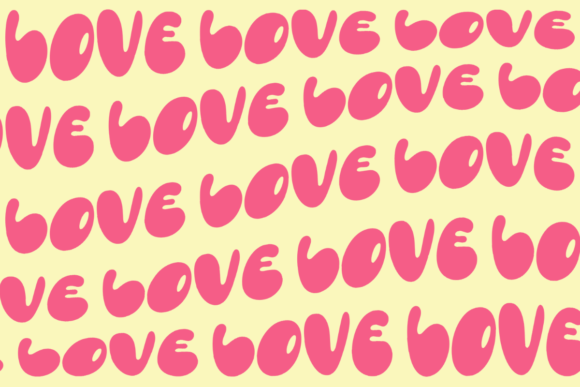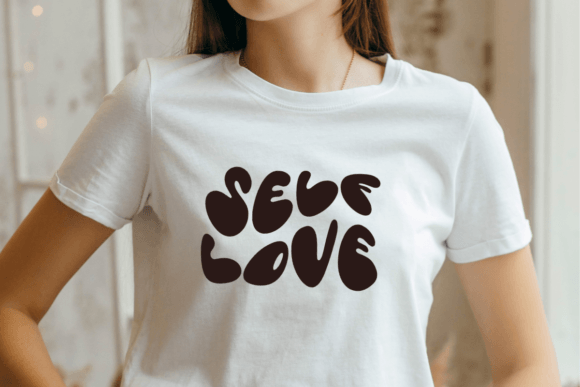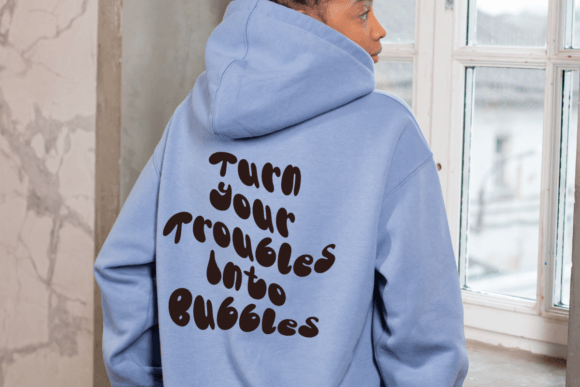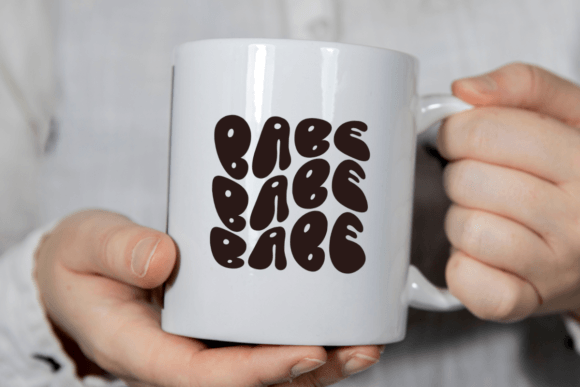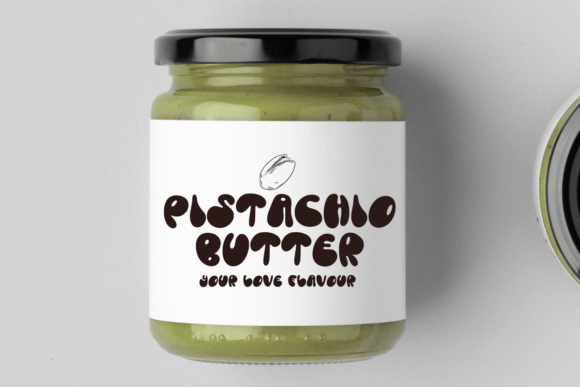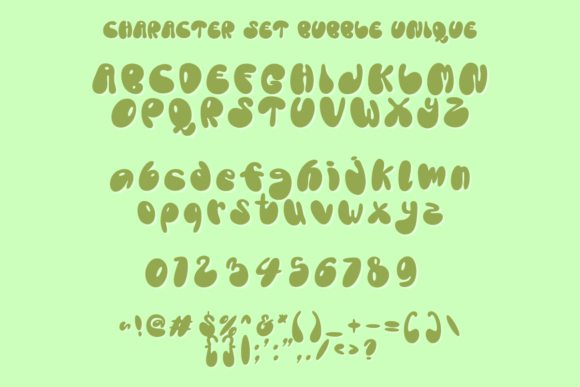
Introducing Bubble Unique Font: Elevate Your Creativity with Distinctive Style
In the realm of typography, few fonts manage to capture attention and inspire creativity like Bubble Unique. This audacious and standout font is imprinted with the charm of distinctive bubbles, making it a versatile choice for a variety of creative endeavors. Whether you’re a designer looking for a unique element to spice up your projects or a crafter aiming to add an edge to your merchandise, Bubble Unique is the perfect choice.
Unleash Your Fashion Potential
Bubble Unique is more than just a font; it’s a statement piece. Its distinctive bubble-inspired characters are perfect as the centerpiece on t-shirts, hoodies, or sweaters. It adds an undeniable edge to your fashion, making it stand out in a crowd. The font’s playful yet bold appearance ensures that your apparel designs are not just visually appealing but also tell a story of uniqueness and creativity.
Elevate Your Quotes and Packaging
The impressive visual impact of Bubble Unique also makes it a bang-on choice for catchy quotes or to simply enhance the allure of your packaging. In a world where brands are constantly seeking new ways to connect with their audience, a distinctive font like Bubble Unique can be a game-changer. It not only makes your content more engaging but also adds a touch of personality to your brand’s voice.
Transform Your Mugs with Bubble Unique
The simplicity, yet the impact of Bubble Unique, takes things up a notch when printed on mugs, turning the ordinary into extraordinary. A simple design can become a stunning piece of art with this font. Whether you’re creating personalized gifts or unique merchandise for your business, Bubble Unique ensures that your mugs stand out and make a statement.
Why Choose Bubble Unique?
- Versatility: From fashion to packaging, and from digital content to physical merchandise, Bubble Unique adapts to any creative project with ease.
- Distinctiveness: Its unique bubble-inspired design ensures that your projects stand out in a crowded market.
- Simplicity and Impact: Despite its playful appearance, the font is easy to read and understand, making it perfect for a wide range of applications.
- Creativity Boost: Bubble Unique has the power to elevate your creativity to new heights, inspiring new ideas and perspectives.
Tips for Using Bubble Unique
To make the most out of Bubble Unique, consider the following tips:
- Pair it with Solids: For maximum impact, pair Bubble Unique with solid colors or subtle gradients that complement its playful vibe.
- Experiment with Sizes: Don’t be afraid to experiment with different sizes. Bubble Unique looks great in both large and small sizes, making it perfect for headlines and body text.
- Mix and Match: Feel free to mix and match Bubble Unique with other fonts to create a unique visual hierarchy.
Bubble Unique is more than just a font; it’s an experience. It brings a fresh perspective to the world of typography, offering a unique blend of playfulness and boldness. Whether you’re a professional designer or a DIY crafter, Bubble Unique has the potential to transform your projects, adding an edge of creativity and distinction. So, experience the magic of Bubble Unique and let it uplift your creativity to new heights.